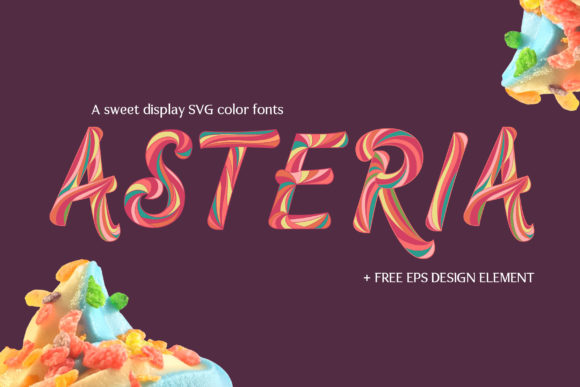
The Joy of Asteria Font: A Fun and Friendly Color Font for Creative Projects
I’ll never forget the time I was working on a children’s activity book, searching for the perfect font to bring the illustrations to life. The project required a playful and authentic touch, but my usual go-to fonts just weren’t cutting it. That’s when I stumbled upon Asteria Font, a vibrant and fun color font that instantly captured the essence of the project. In this article, I’ll share my experience with Asteria Font, its features, and how to make the most of it in various design platforms.
A Personal Review of Asteria Font
What I Love About Asteria Font ✨
- ⭐️ Playful and Authentic: Asteria Font embodies the perfect blend of playfulness and authenticity, making it ideal for children’s activities, school projects, and even adult designs that need a fun twist.
- 🌈 Vibrant Colors: As a color font (Opentype-SVG), Asteria Font offers a range of colors that can add an extra layer of depth and visual interest to your designs.
While Asteria Font is an excellent choice for many projects, there are a few limitations to consider:
- ⚠️ Learning Curve: If you’re new to using color fonts or OpenType features, you might need to spend some time getting familiar with the font’s capabilities and how to access them.
The Backstory of Asteria Font
Asteria Font was designed with the intention of creating a fun and friendly font that could bring joy to creative projects. The designer aimed to craft a font that would be perfect for children’s activities, school projects, and even adult designs that need a playful touch. With its vibrant colors and playful personality, Asteria Font has become a popular choice among designers and crafters.
Q: What is a color font, and how does it work?
A: A color font, also known as an Opentype-SVG font, is a type of font that uses SVG images to display multiple colors. This allows for more creative and visually interesting designs.